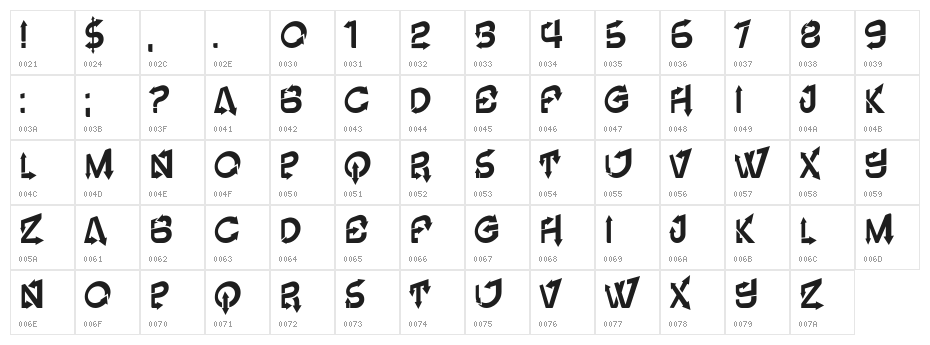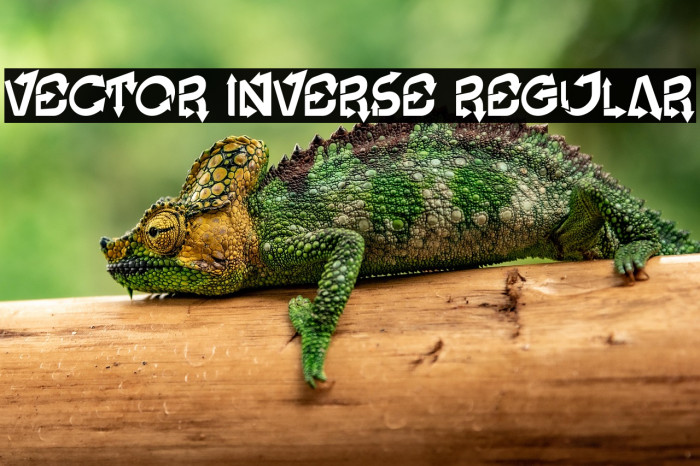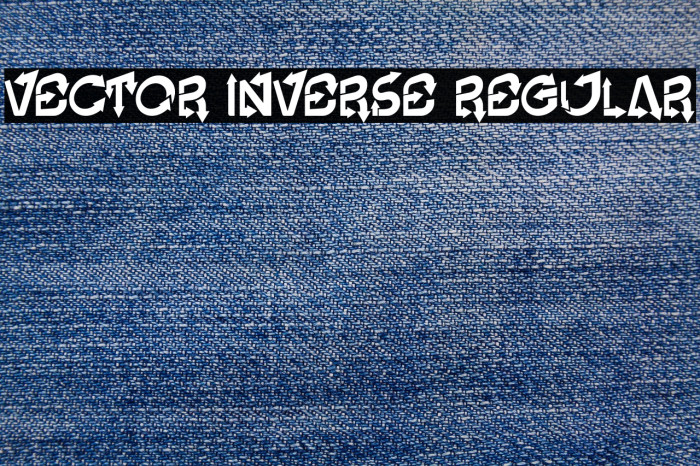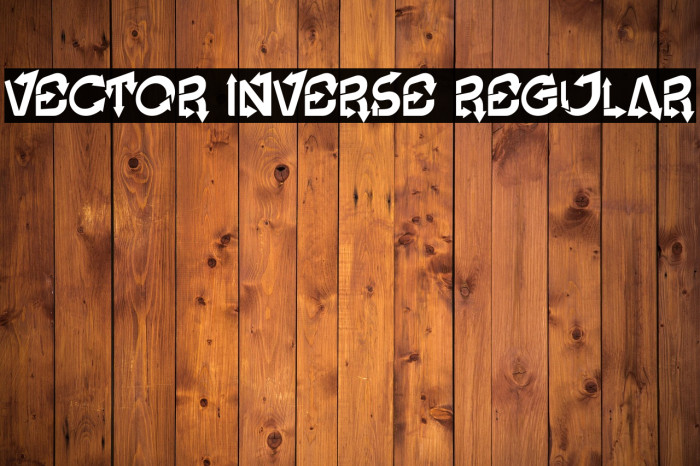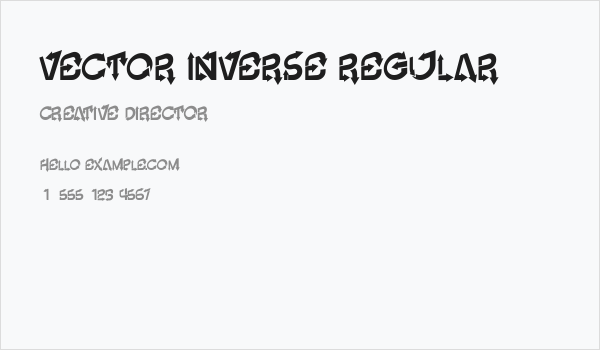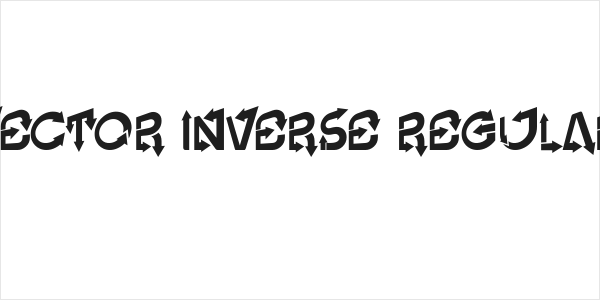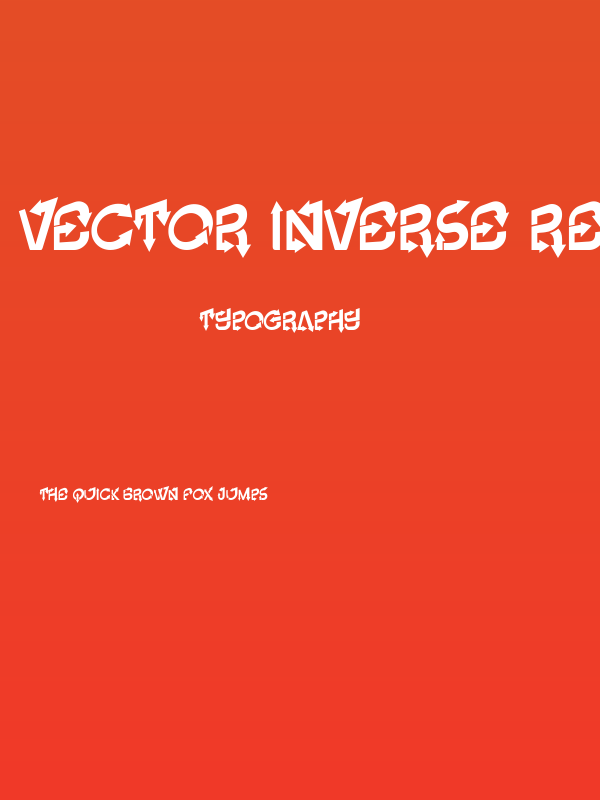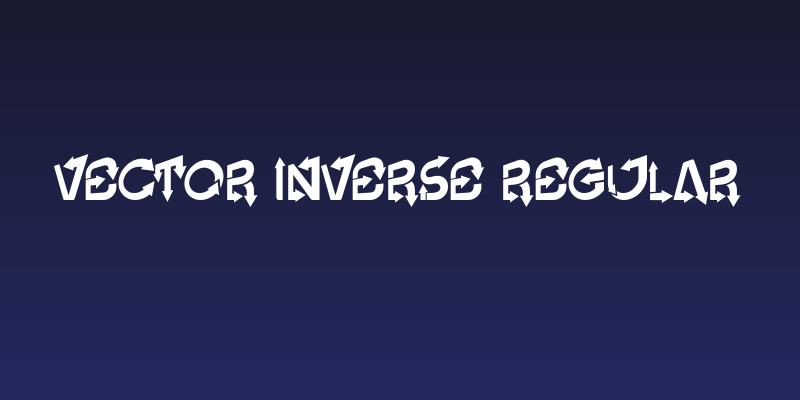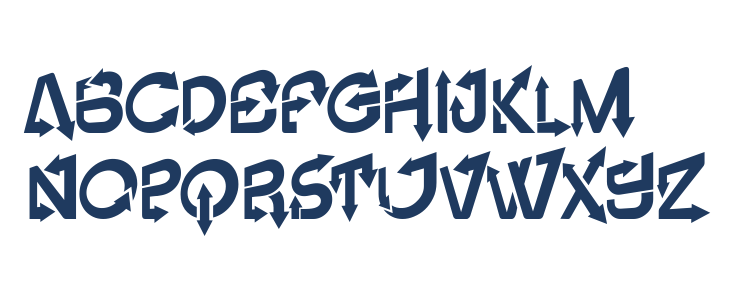
Vector Inverse Regular Font
Vector Inverse Regular Description
This font features a bold and striking design with a unique arrow motif integrated into each character. The uppercase and lowercase letters, as well as the numbers, are crafted with sharp angles and geometric shapes, creating a dynamic and modern appearance. The special characters maintain the same bold style, ensuring consistency across all glyphs. The font's distinct style makes it ideal for attention-grabbing designs, where a strong visual impact is desired. Its geometric and angular nature lends itself well to projects that require a futuristic or tech-inspired aesthetic.
| Proposed Projects | Ideal for branding, posters, video game graphics, and tech-related designs. |